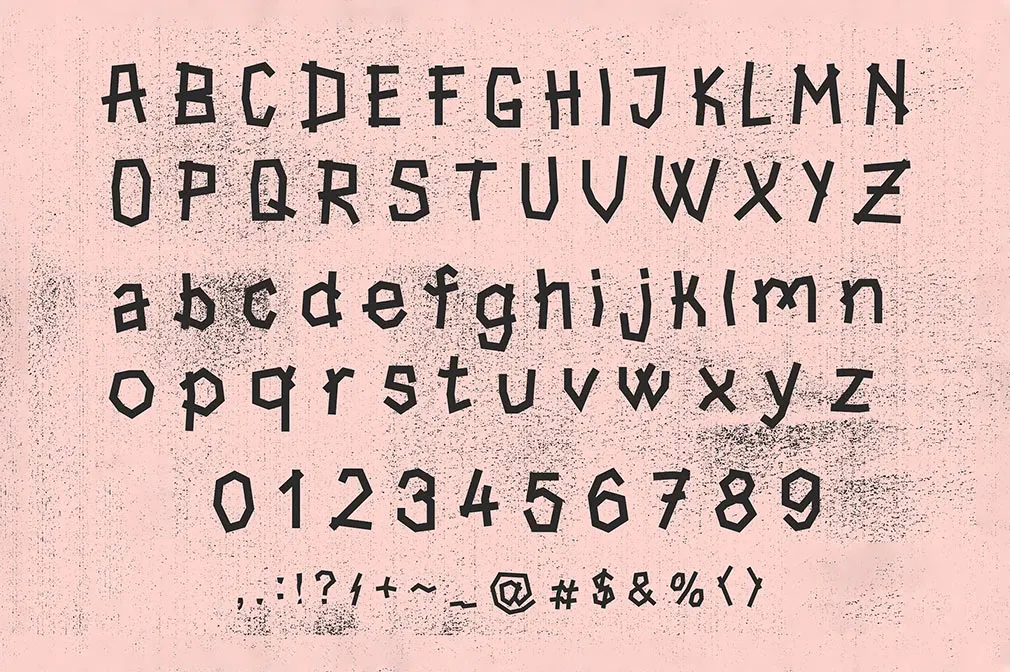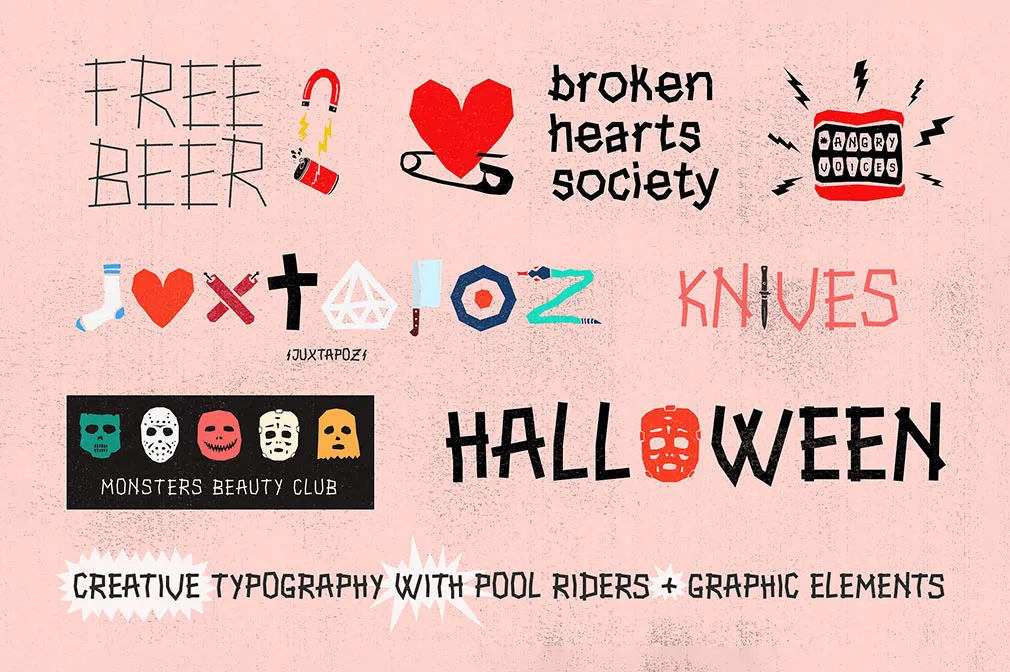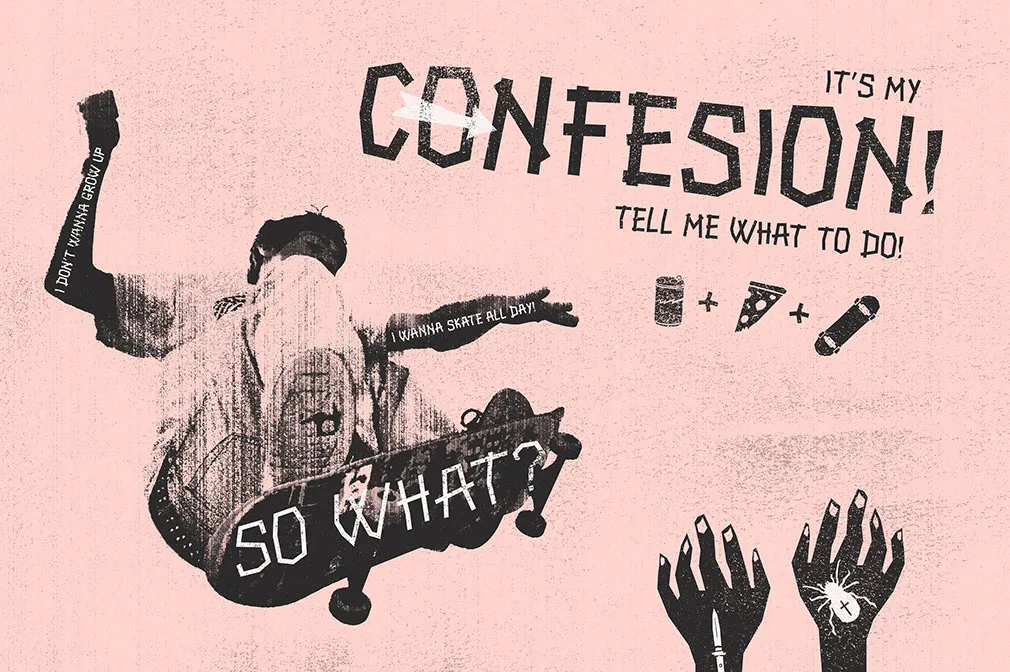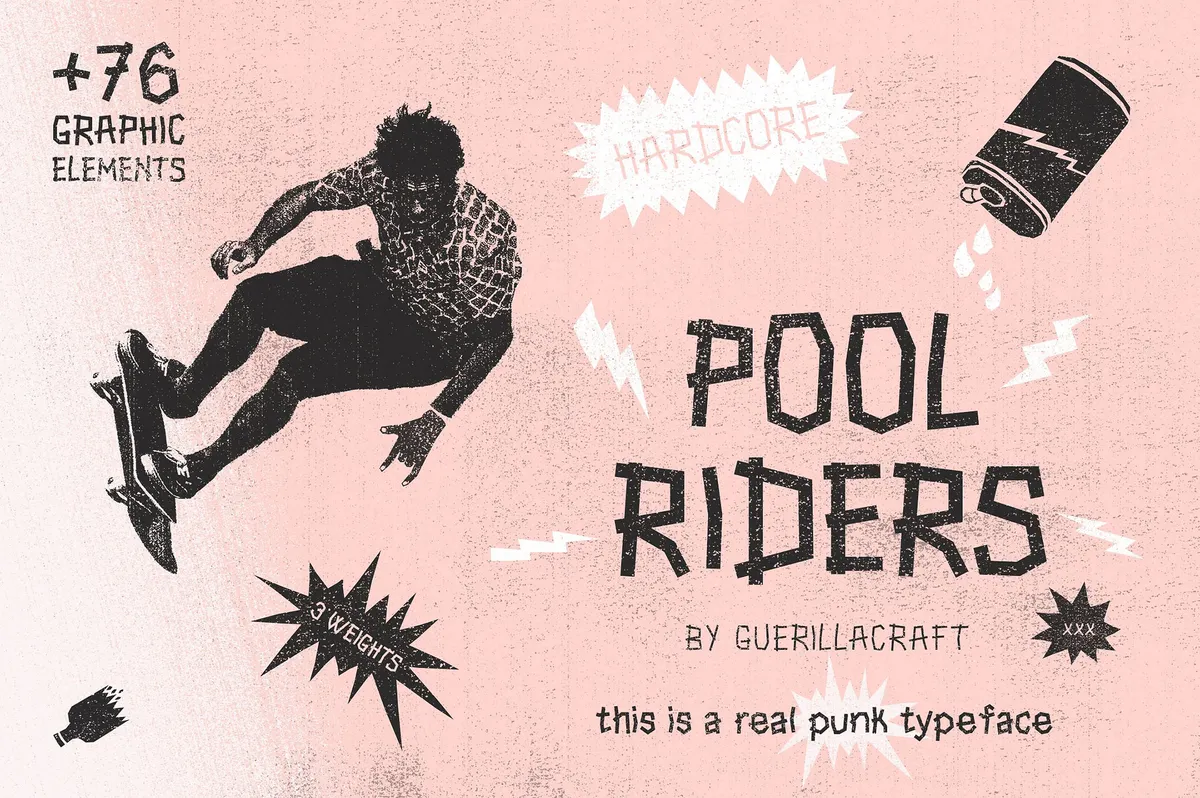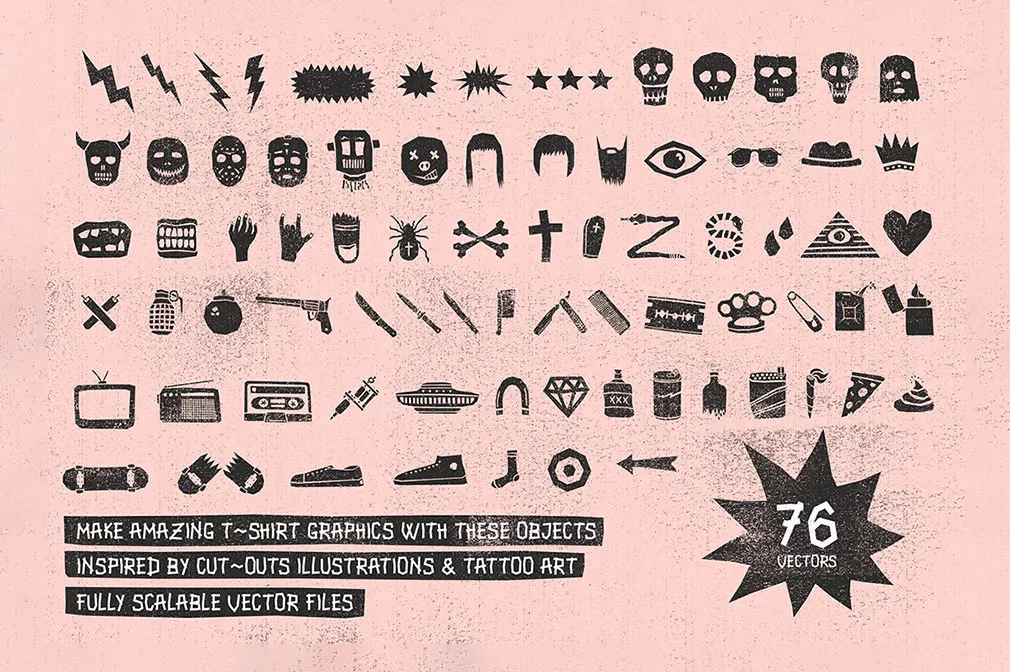
Pool Riders Typeface + Bonus Vector Cut-Outs
How many bold moves do you have on your list? The reason were asking is that were to present you Pool Riders a real punk typeface, that inspires for totally bizarre designs!
3 weights, uppercase and lowercase symbols, numbers and extras theyre all included, so Pool Riders typeface is here to combine strong personality and boundless user-friendliness. Along with it, you may be sure to complement your artistic toolbox with 76 graphic elements in a vector format, made as cut-outs and looking 100% rebellious. Mix up all these items and a nice combination of typography and graphics for any sorts of projects is done. And you dont need to download anything else to put a full stop!